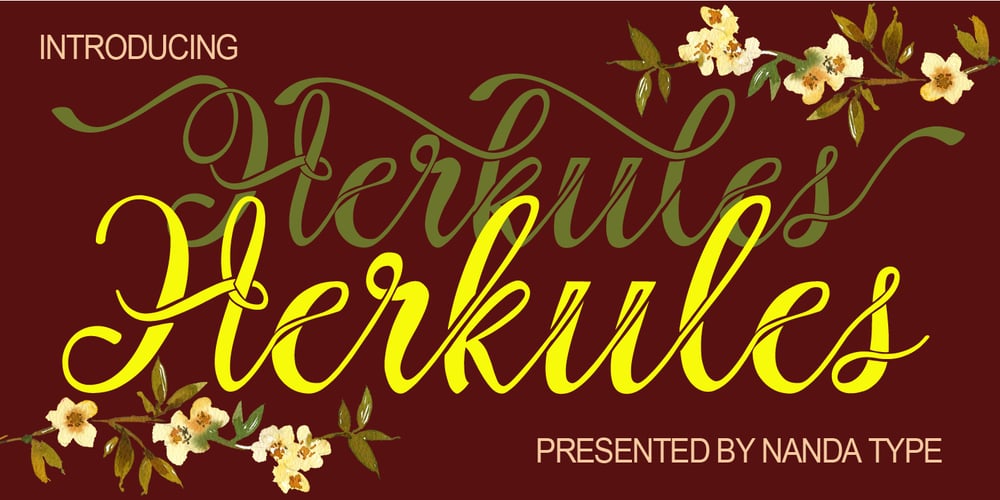
Herkules Font Family was designed by Nanda Type and published by Nandatype Studio. Herkules contains 1 styles and family package options. Herkules is a whimsical script font with a relaxed theme, with a series of hooking hooks for a beautiful style. Whatever the topic, this font will be a great asset to your font library, as it has the potential to enhance any creation. This font is PUA encoded which means you can access all the glyphs and sweeps easily!